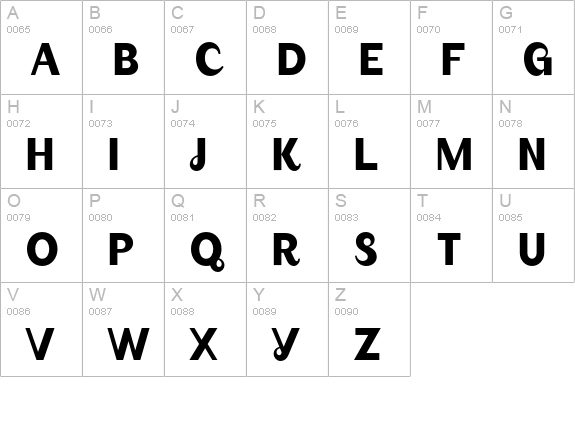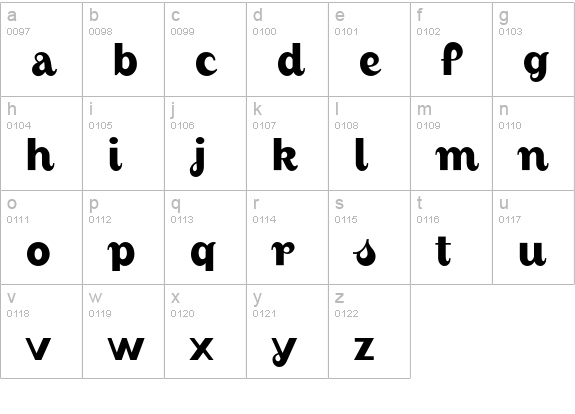
August-Medium Font Details
August-Medium is a balanced, medium-weight variant in the August typeface family \xE2\x80\x94 well suited to sub-headlines, navigation, and balanced editorial work.
August-Medium is a versatile and modern font that strikes the perfect balance between elegance and readability. With its clean lines and medium weight, this font is ideal for various design projects such as branding, advertising, and editorial design. The August-Medium font exudes a sense of sophistication and professionalism, making it a popular choice among designers and creatives. What's even better is that August-Medium is available for free download at FontsMarket.com. This means you can easily access this high-quality font without any cost, allowing you to enhance your projects with a touch of style and flair. Don't miss out on the opportunity to add August-Medium to your font collection and elevate your designs to the next level.